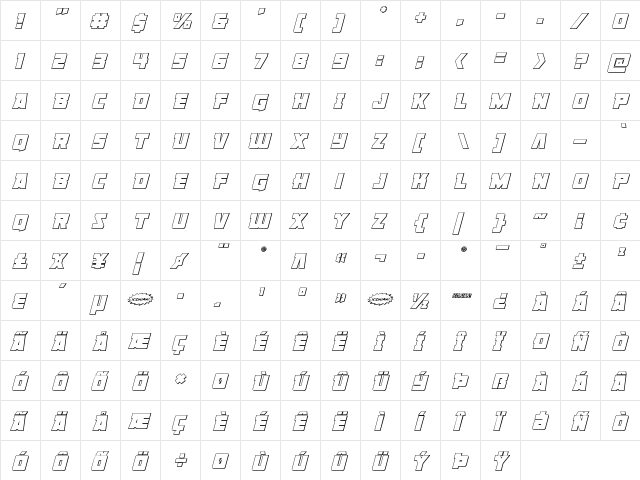
Liberty Legion Outline Italic Outline Italic
Design Context for Liberty Legion Outline Italic Typeface
Liberty Legion Outline Italic brings ornamental detail and strong personality to headlines and identities, where visual impact matters more than quiet functionality. Its italic angle brings a sense of urgency and motion to the letterforms.
Font Pairing: Pair with a clean neutral sans-serif for body copy to let Liberty Legion Outline Italic's character lead without overwhelming the composition.
Pro Tip: Use Liberty Legion Outline Italic exclusively at display sizes — it was designed to be seen, not read at length. Let a neutral companion handle body copy.